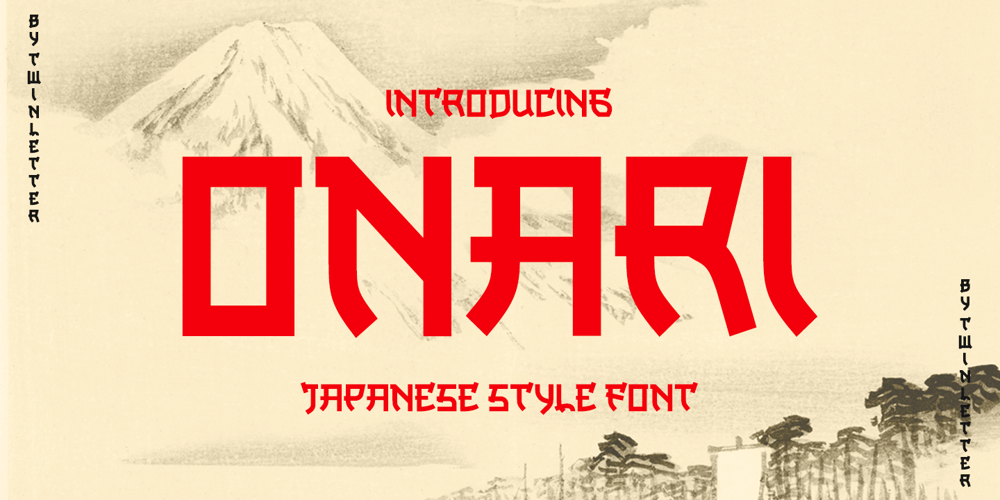
Onari Faux
Onari Faux font
Onari Faux Font Family was designed by Rozikan and published by Twinletter. Onari Faux contains 1 styles and family package options. ONARI is a display font with a strong character, similar to the original Japanese letters, and it has a Japanese flair. This typeface is ideal for your project since it will make your work look stylish, understandable, and, most importantly, it will fascinate your audience.Logotypes, food banners, branding, brochure, posters, movie titles, book titles, quotes, and more may all benefit from this font.Of course, using this font in your various design projects will make them excellent and outstanding; many viewers are drawn to the striking and unusual graphic display.Start utilizing this typeface in your projects to make them stand out